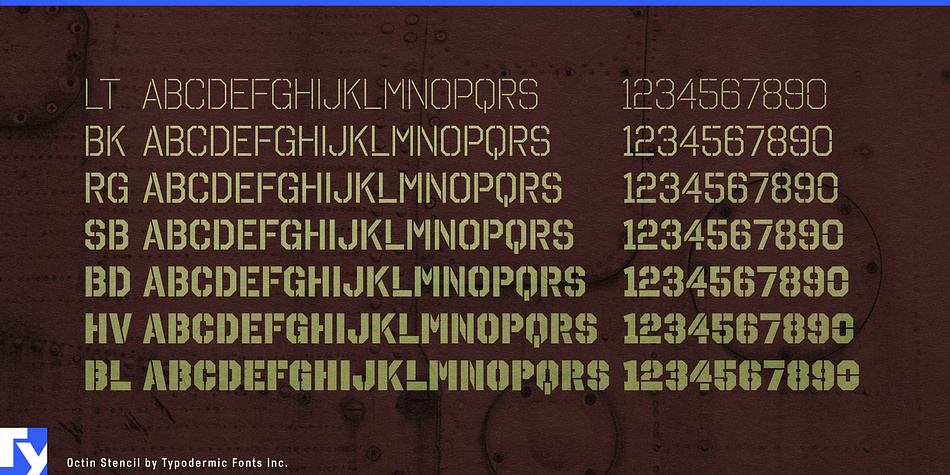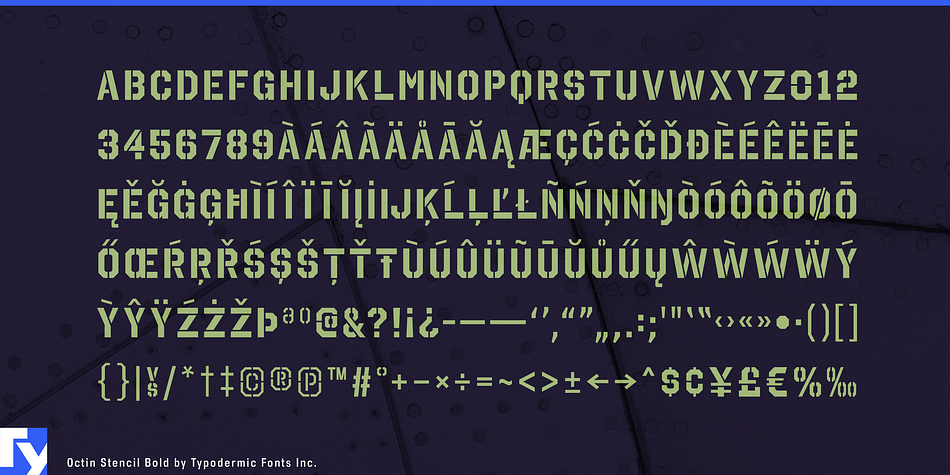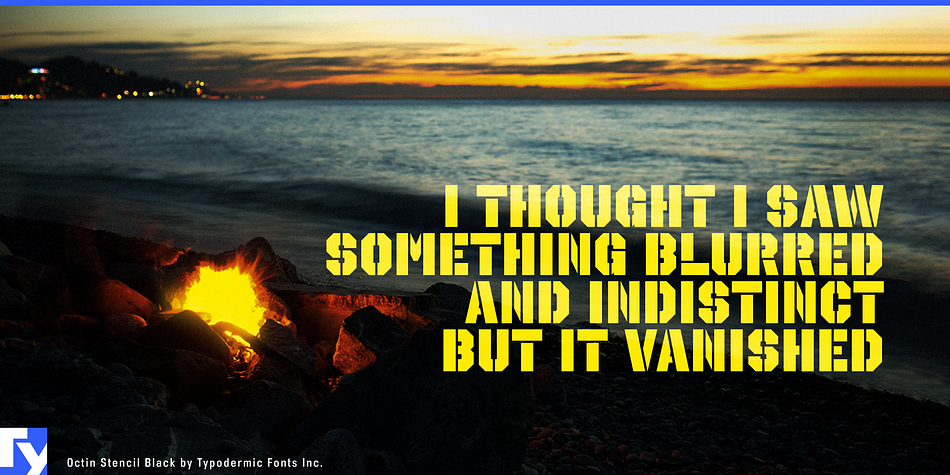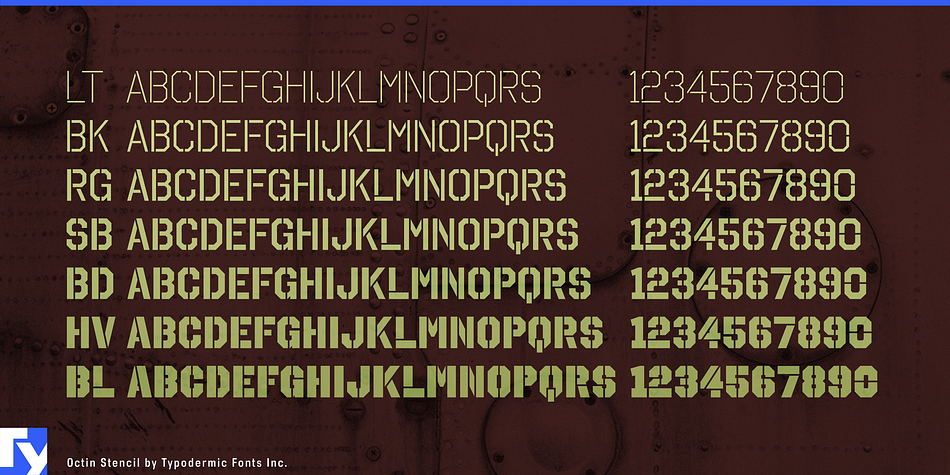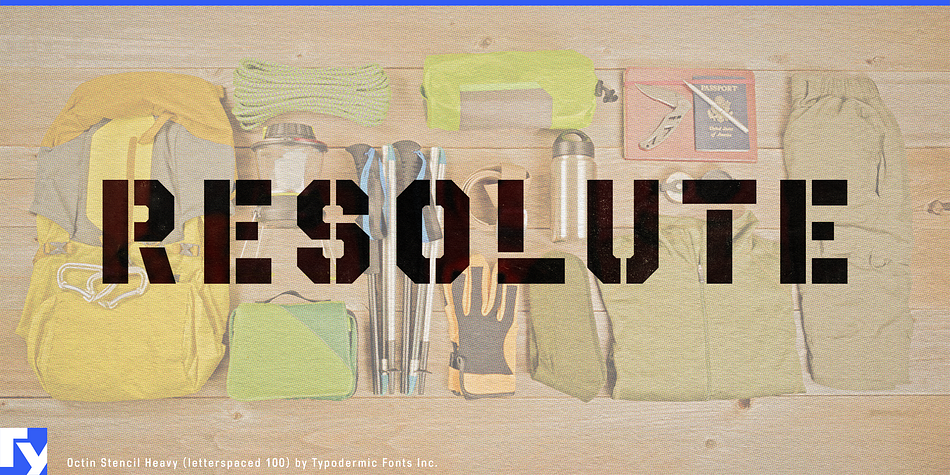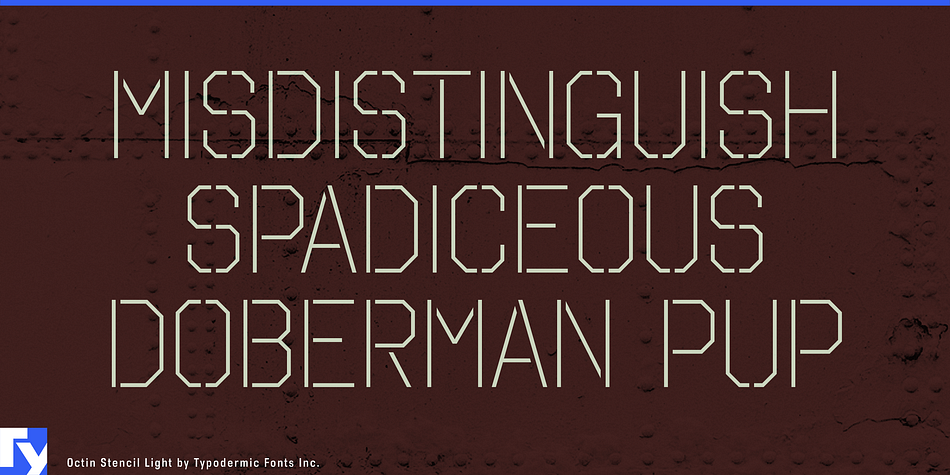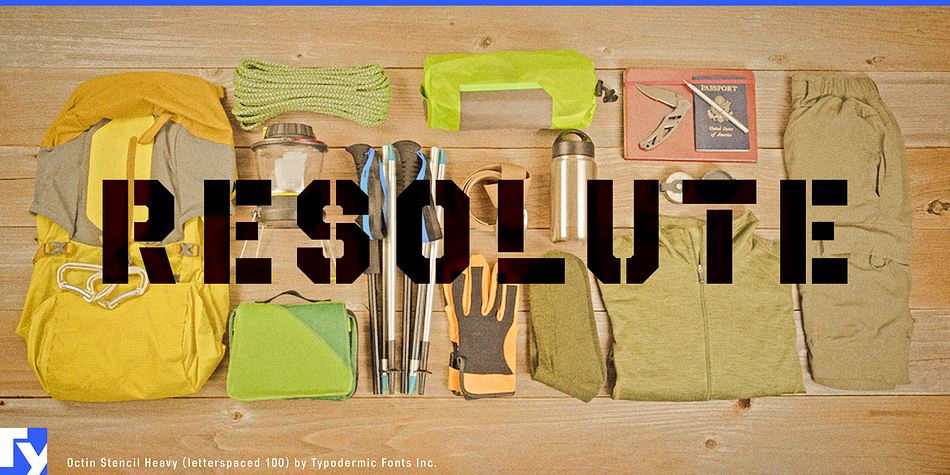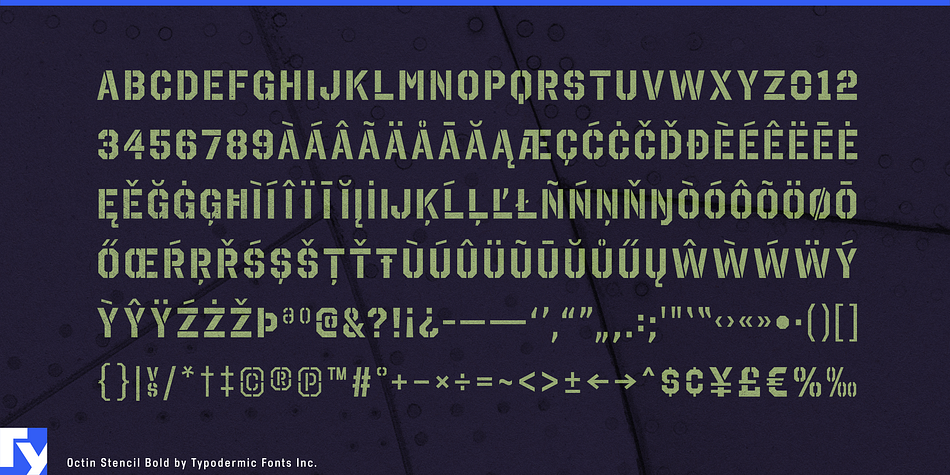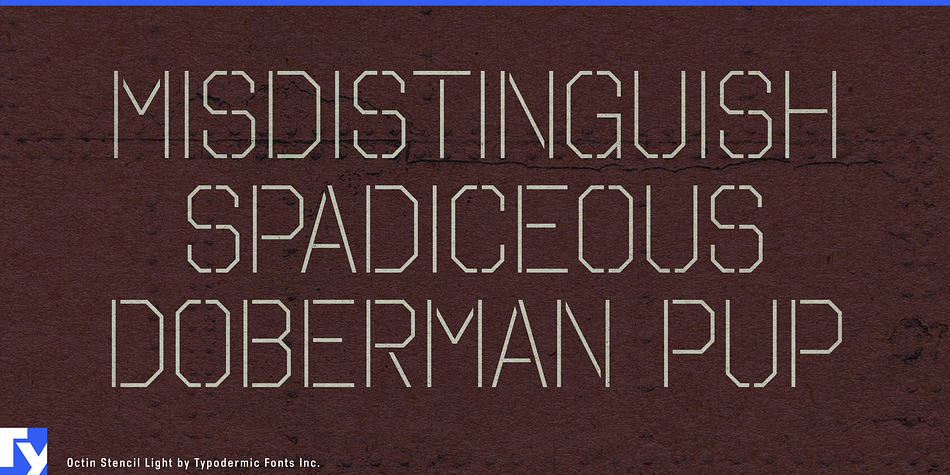
Octin Stencil is a stencil font family. This typeface has seven styles and was published by Typodermic Fonts Inc.
Octin Stencil is a tough headliner in 7 weights: light, book, regular, semi-bold, heavy & black. Octin Stencil is perfect for police, sports, prison, construction, school or military themes. Check out the rest of the Octin families: Octin Sports, Octin College, Octin Prison, Octin Stencil & Octin Spraypaint.